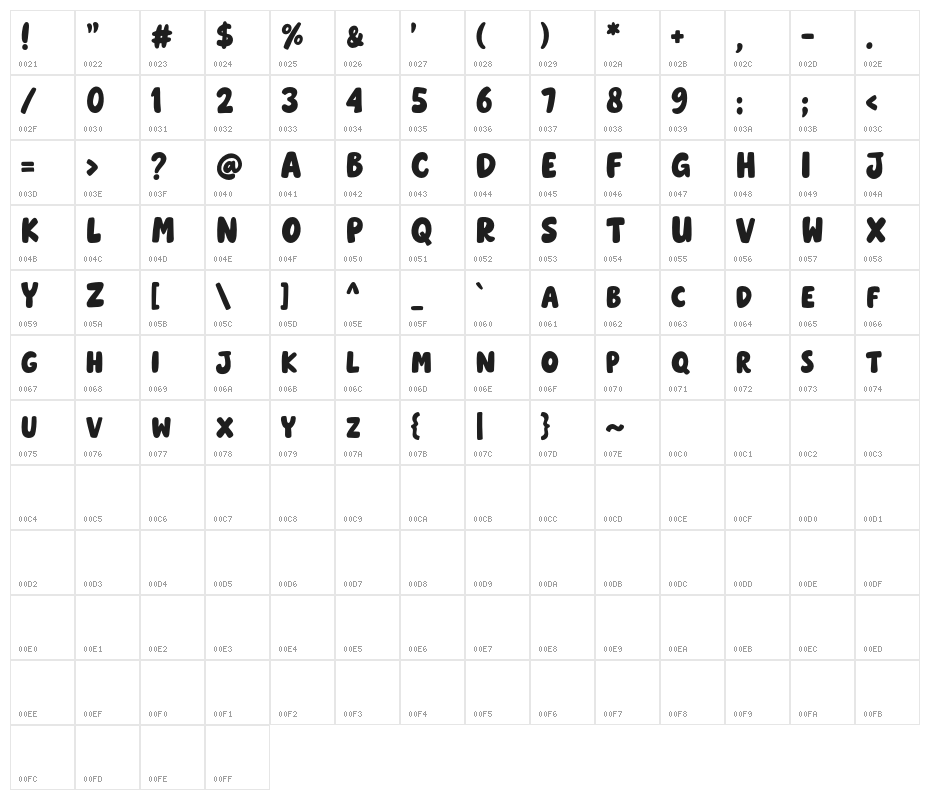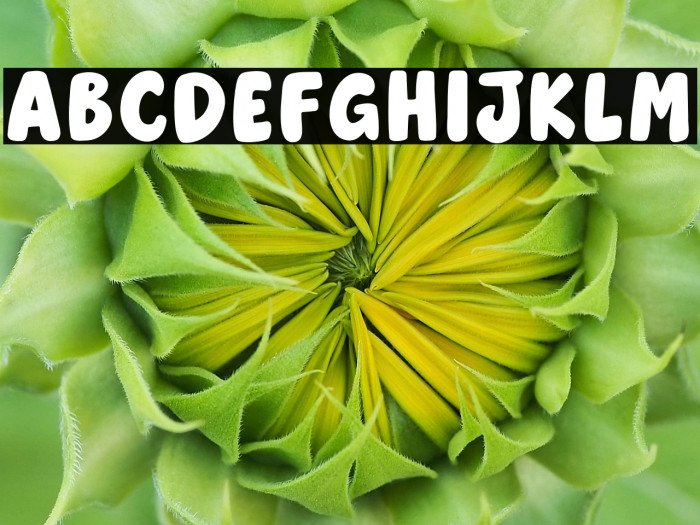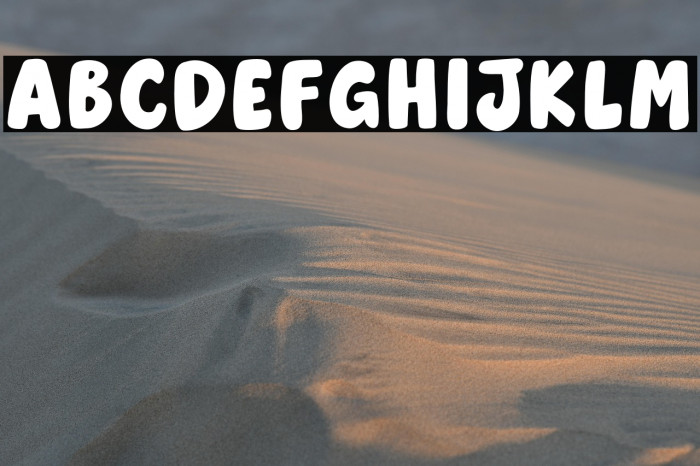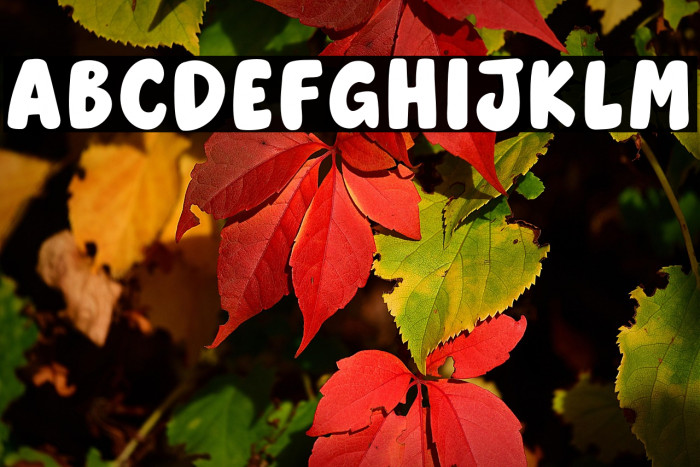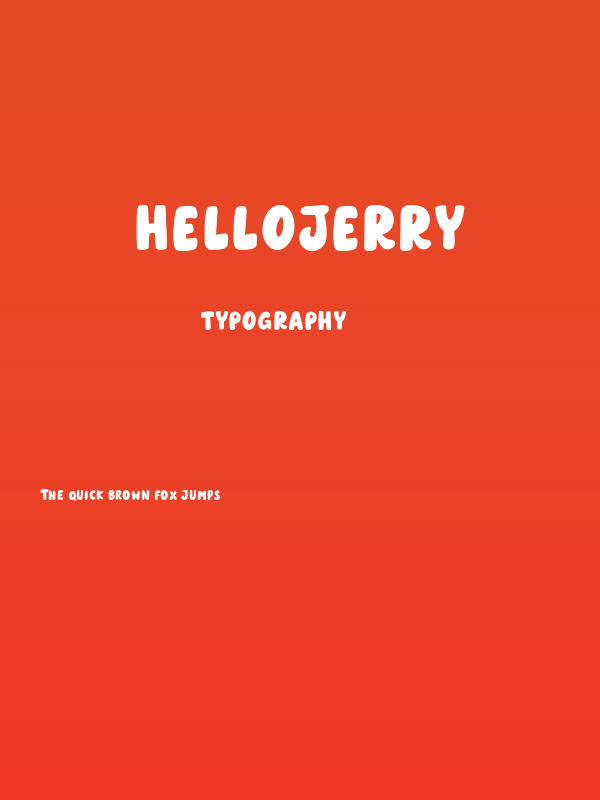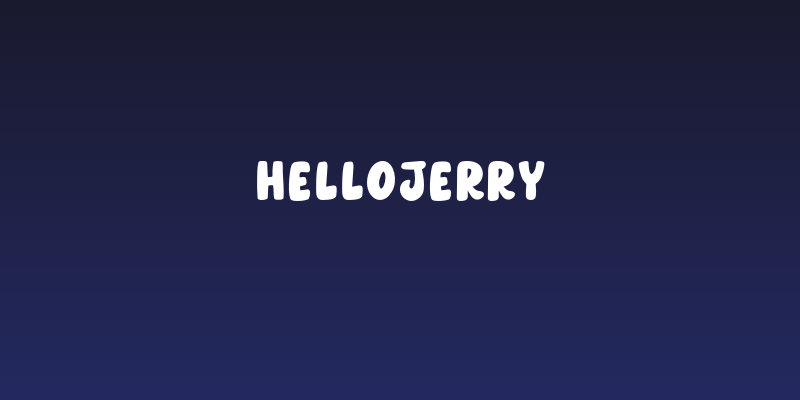
HelloJerry Font
HelloJerry Description
This playful and bold font features rounded, thick strokes that give it a friendly and approachable appearance. The characters are slightly irregular, adding a whimsical touch that makes it stand out. Its boldness ensures high readability, making it suitable for attention-grabbing designs. The font maintains a consistent weight throughout, with smooth curves and a slightly condensed width. The character spacing is normal, allowing for clear legibility without feeling cramped. The font's style is modern and decorative, ideal for projects that require a fun and lively aesthetic.
| Width | Condensed |
| Overall Style | Modern, Decorative |
| Proposed Projects | Ideal for children's books, playful branding, posters, and social media graphics. |